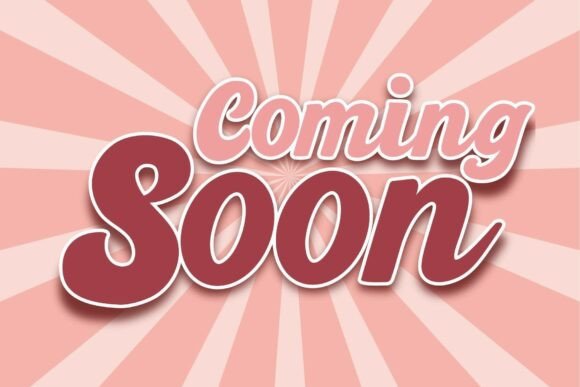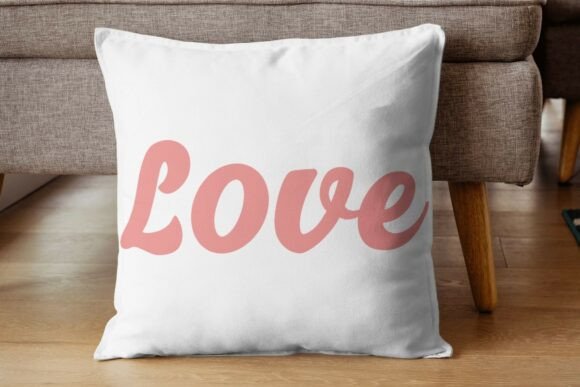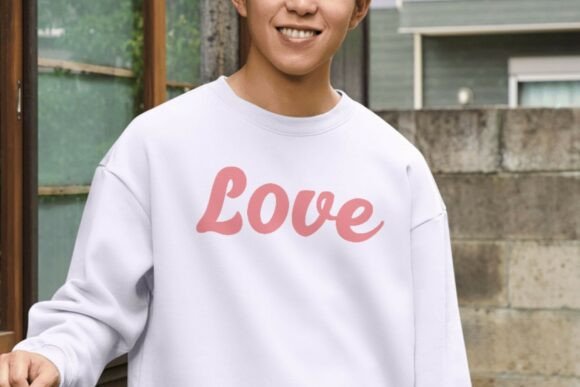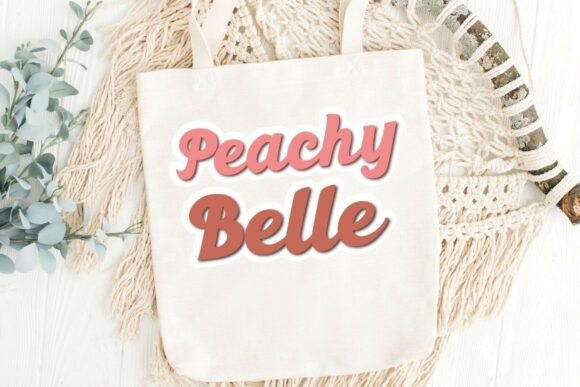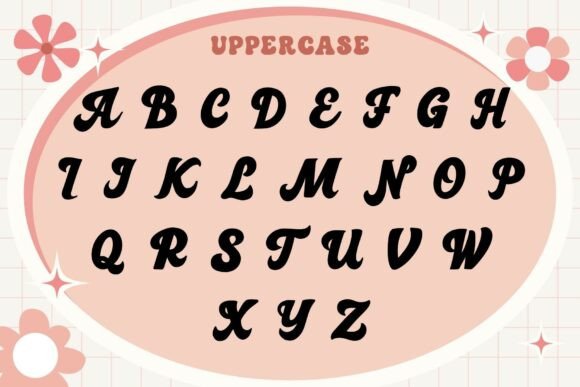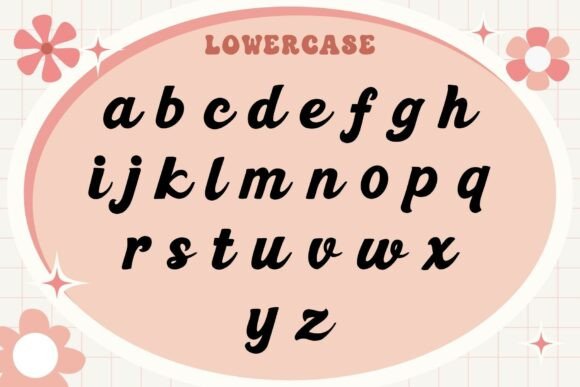
Introduction to Peachy Belle Font
Do you ever find yourself daydreaming about the perfect font to add a touch of whimsy to your designs? As a designer, I’m sure you’ve spent countless hours searching for that one special font that captures the essence of your creative project. For me, it’s all about finding a font that brings a smile to my face and transports me back to a bygone era. That’s exactly what the Peachy Belle Font does – it’s a playful retro script font that’s sure to delight.
With its smooth curves and soft, feminine vibe, the Peachy Belle Font is a high-quality design resource that’s perfect for a wide range of creative projects. Whether you’re designing for a Cricut craft, a social media graphic, or a vintage-inspired logo, this font is sure to add a touch of personality to your work. And the best part? It’s available for free download, making it a valuable resource for designers of all levels.
Key Features of Peachy Belle Font
- High-quality, elegant script font designed for creative projects, perfect for adding a touch of sophistication to any design.
- Transparent background, making it easy to place over any image or background, ideal for graphic designers and digital artists.
- Unique, hand-drawn style with a subtle, cursive flair, adding a personal touch to any creative project.
- Perfect for wedding invitations, greeting cards, and other special occasion designs, as well as branding and marketing materials.
Honest Review: Peachy Belle Font
As a designer, I’m always on the lookout for high-quality design resources that can elevate my creative projects. The Peachy Belle Font is a great find, offering a beautiful and elegant script font that’s perfect for a variety of applications.
- ✨ Beautiful and elegant script font with a soft, feminine touch
- ✨ Comes in a range of styles and weights, making it highly versatile
- ⚠️ May not be suitable for bold or high-contrast designs, as the font’s delicate nature can get lost
Overall, I’m impressed with the Peachy Belle Font’s high quality and versatility. While it may not be perfect for every design project, it’s a great resource to have in your toolkit, especially for creative projects that require a touch of elegance and sophistication.
The Peachy Belle Font is suitable for a wide range of design projects, including wedding invitations, birthday cards, and other creative endeavors that require a touch of sophistication. Its elegant style and high-quality design make it an excellent choice for designers and non-designers alike.